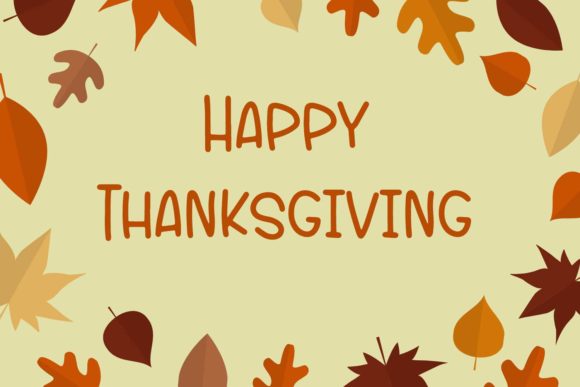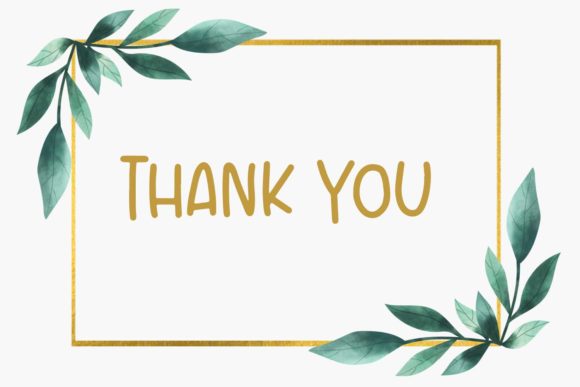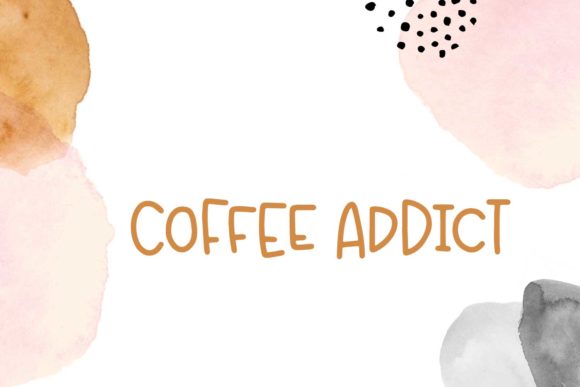
The Ultimate Guide to Fried Bark Font: A Modern, Playful Handwritten Font
I’ll never forget the moment I stumbled upon the Fried Bark font. I was working on a project for a client who wanted a playful, yet modern design for their new product line. As I scrolled through my font library, I found myself stuck. That’s when I remembered hearing about Fried Bark, a handwritten font that had been making waves in the design community. I gave it a try, and it instantly elevated my design to the next level. In this article, I’ll share my experience with Fried Bark, its unique features, and how to make the most of it in your designs.
A Personal Review of Fried Bark Font
As a designer, I’m always on the lookout for fonts that can help me create stunning visuals. Here’s what I love about Fried Bark:
- ✨ Unique and natural style: Fried Bark has a one-of-a-kind look that sets it apart from other handwritten fonts.
- ✅ Highly versatile: This font can be used for a wide range of designs, from playful posters to elegant branding materials.
- 💫 Modern and trendy: Fried Bark has a fresh, contemporary feel that’s perfect for designs that need to feel current.
Of course, no font is perfect. Here are a few quirks to keep in mind:
- 🤔 Limited use in formal designs: While Fried Bark is incredibly versatile, it may not be the best choice for formal designs, such as business reports or academic papers.
- ⚠️ Some letters may require adjustment: As with any handwritten font, some letters may need to be adjusted to ensure proper spacing and alignment.
The Story Behind Fried Bark Font
While the true story behind Fried Bark may be unknown, it’s easy to imagine that it was created by a designer who wanted to craft a font that was both modern and playful. Perhaps they drew inspiration from the natural world, combining the organic feel of handwritten script with the sophistication of digital typography. Whatever the inspiration, Fried Bark is a true gem that deserves to be celebrated.
| Font Name | Fried Bark Font |
| Author | Zmapist |
| What is Fried Bark font best used for? | Fried Bark is a versatile font that can be used for a wide range of designs, from playful posters to elegant branding materials. |